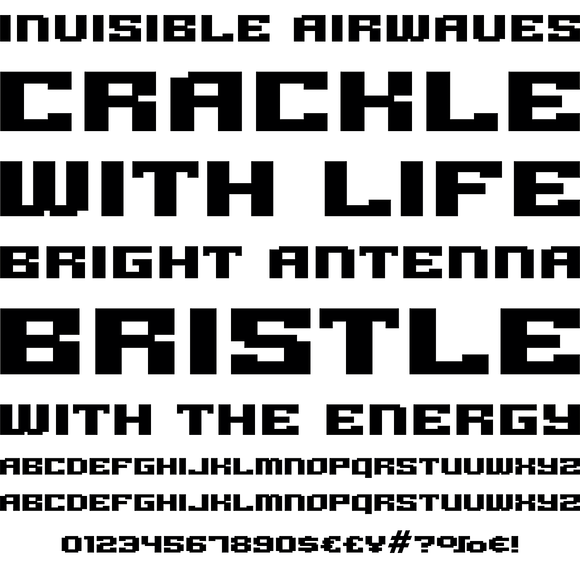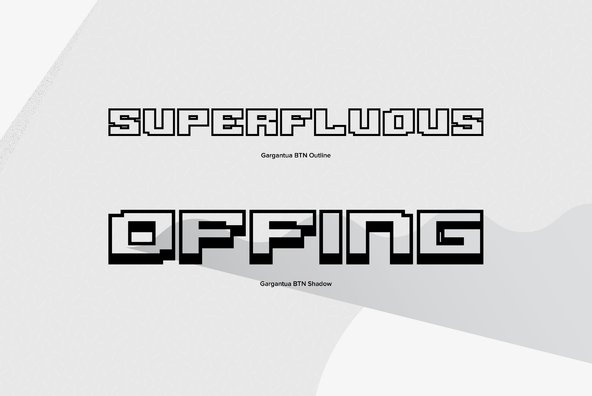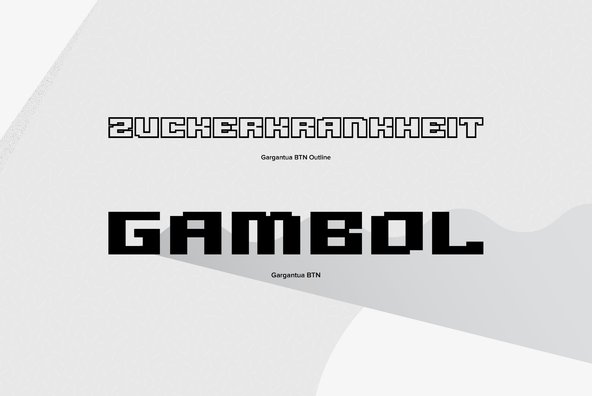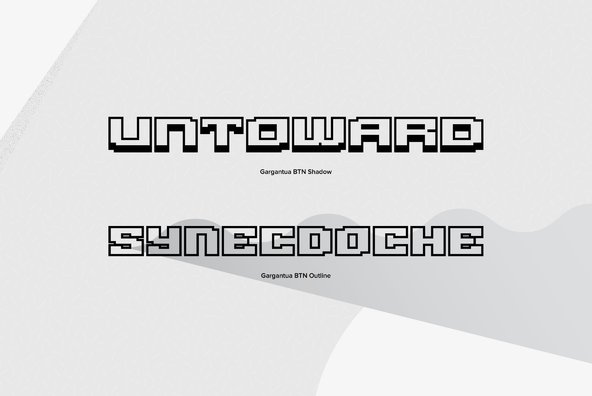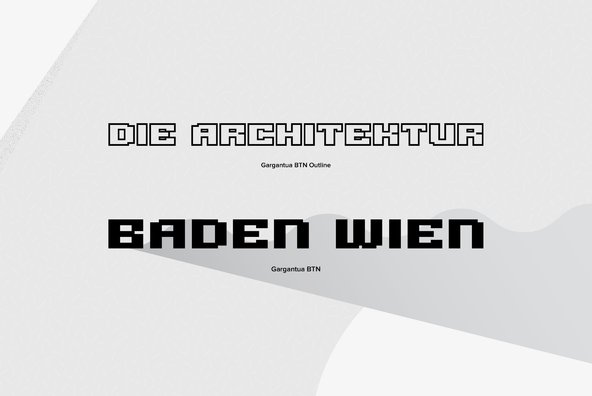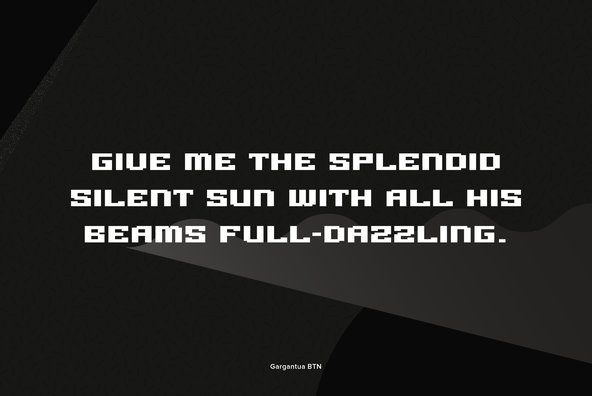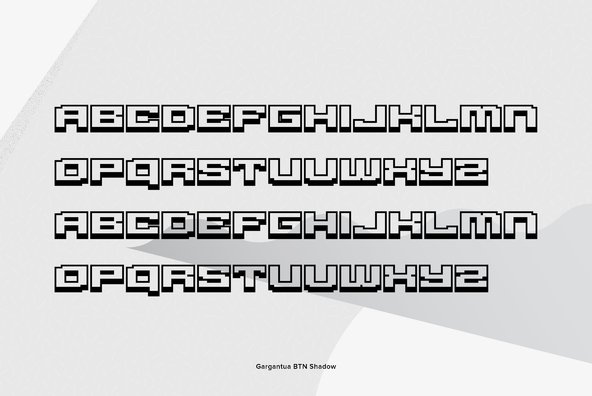
Gargantua
Gargantua is the definition of Tuff Type. It's heavy weights and geometric bitmap style flavor with varaints including outline, drop shadow, and chrome versions, gives it a range of versatility for design use.